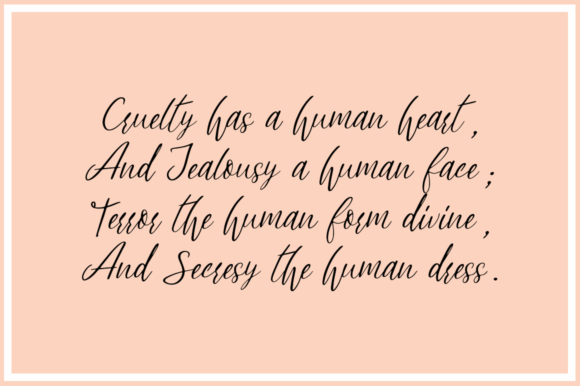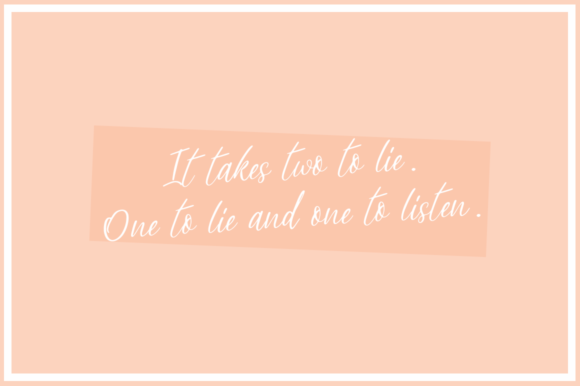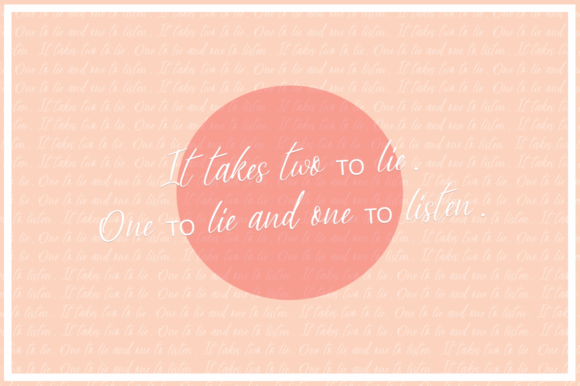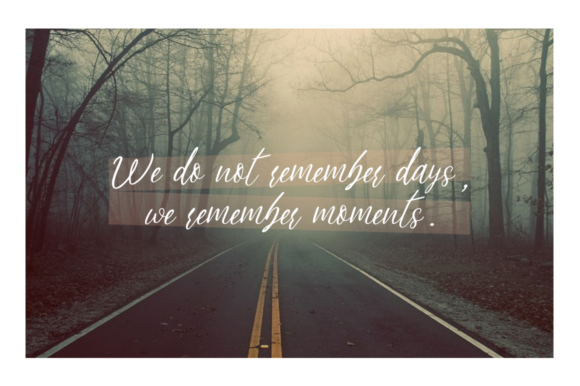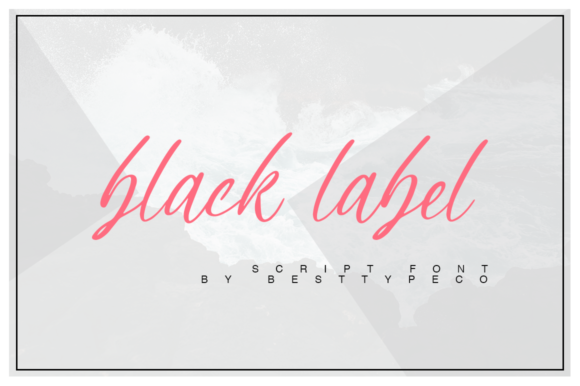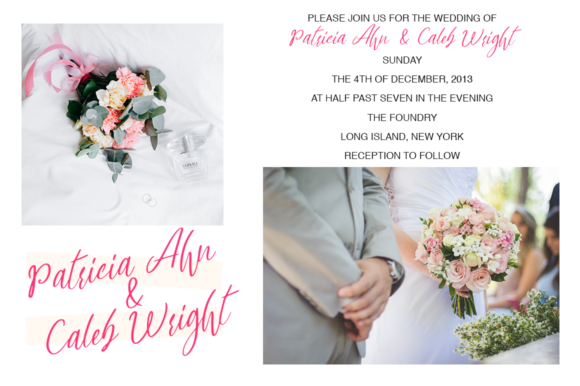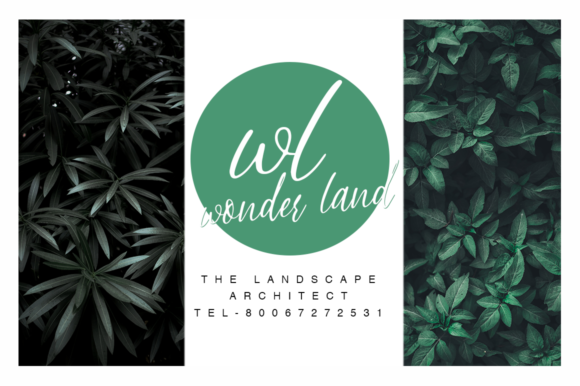
Unleash Your Creativity with Black Label Font: A Friendly and Fun Script
Are you a designer or crafter looking for a unique and stunning font to elevate your creative projects? Look no further than Black Label Font, a friendly and fun script that is sure to capture your audience’s attention. With its incredibly stunning set of letters, Black Label Font is the perfect addition to any design or crafting project.
What is Black Label Font?
Black Label Font is a script font that is designed to be both friendly and fun. Its unique and elegant lettering makes it perfect for a wide range of creative projects, from handmade crafts to digital designs. The font is carefully crafted to provide a stunning set of letters that will add a touch of personality to any project.
Features of Black Label Font
- Unique and Elegant Lettering: Black Label Font features a unique and elegant lettering style that is sure to make your projects stand out.
- Stunning Set of Letters: The font includes an incredibly stunning set of letters that will add a touch of personality to any project.
- Friend and Fun Script: Black Label Font is designed to be both friendly and fun, making it perfect for creative projects that require a playful touch.
- High-Quality Design: The font is carefully crafted to provide a high-quality design that will elevate your projects to the next level.
Uses of Black Label Font
Black Label Font is a versatile font that can be used for a wide range of creative projects, including:
- Handmade Crafts: The font is perfect for handmade crafts, such as card making, scrapbooking, and journaling.
- Digital Designs: Black Label Font can be used for digital designs, such as social media graphics, blog posts, and website headers.
- Sign Making: The font is great for sign making, including store signs, event signs, and directional signs.
- Stationery: Black Label Font can be used to create beautiful stationery, including invitations, greeting cards, and letterhead.
Benefits of Using Black Label Font
Using Black Label Font in your creative projects offers a range of benefits, including:
- Unique and Eye-Catching Designs: The font’s unique and elegant lettering style will help your projects stand out and grab attention.
- Easy to Read: Black Label Font is easy to read, making it perfect for projects that require clear and concise communication.
- Versatile: The font can be used for a wide range of creative projects, from handmade crafts to digital designs.
- High-Quality Design: The font’s high-quality design ensures that your projects will look professional and polished.
Tips for Using Black Label Font
Here are some tips for using Black Label Font in your creative projects:
- Use it for Headings: Black Label Font is perfect for headings and titles, where its unique and elegant lettering style can really shine.
- Pair it with Other Fonts: The font can be paired with other fonts to create a unique and eye-catching design.
- Experiment with Colors: Black Label Font looks great in a range of colors, so don’t be afraid to experiment and find the perfect color for your project.
- Use it for Branding: The font’s unique and elegant lettering style makes it perfect for branding and logo design.
Black Label Font is a friendly and fun script that is sure to elevate your creative projects to the next level. With its incredibly stunning set of letters, unique and elegant lettering style, and high-quality design, it’s the perfect addition to any design or crafting project. Whether you’re a designer or crafter, Black Label Font is a versatile font that can be used for a wide range of creative projects. So why not give it a try and see the difference it can make?